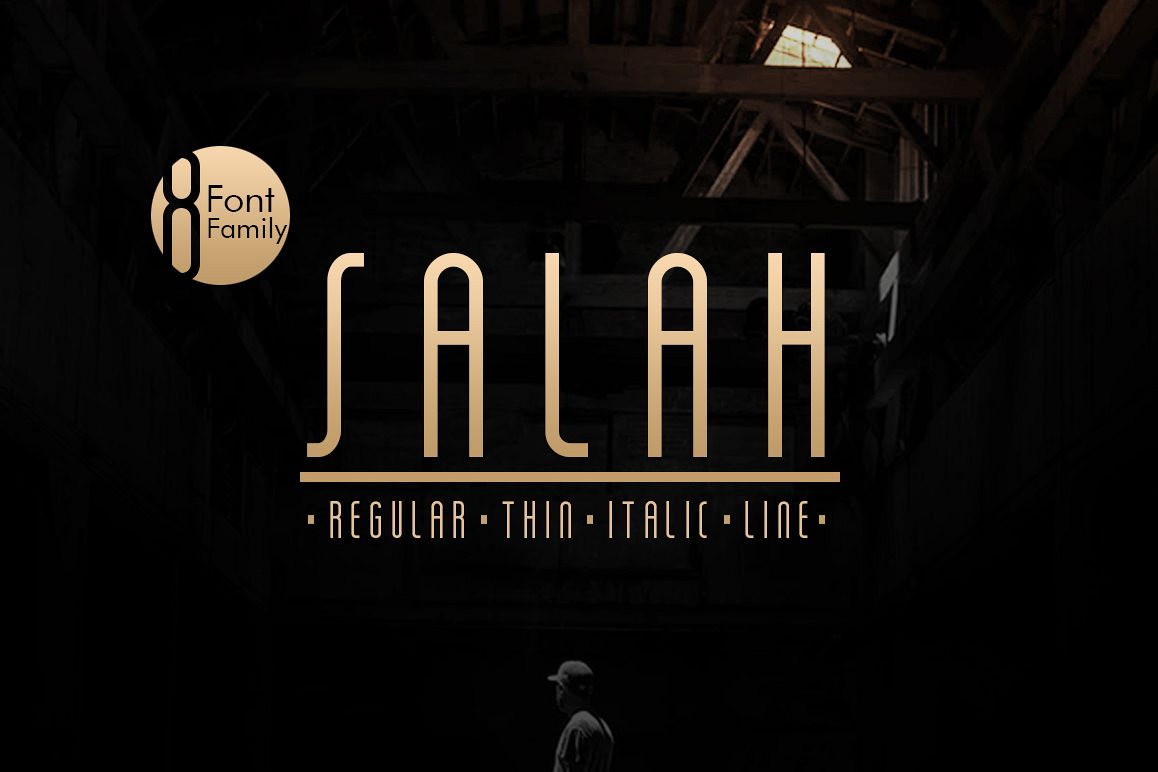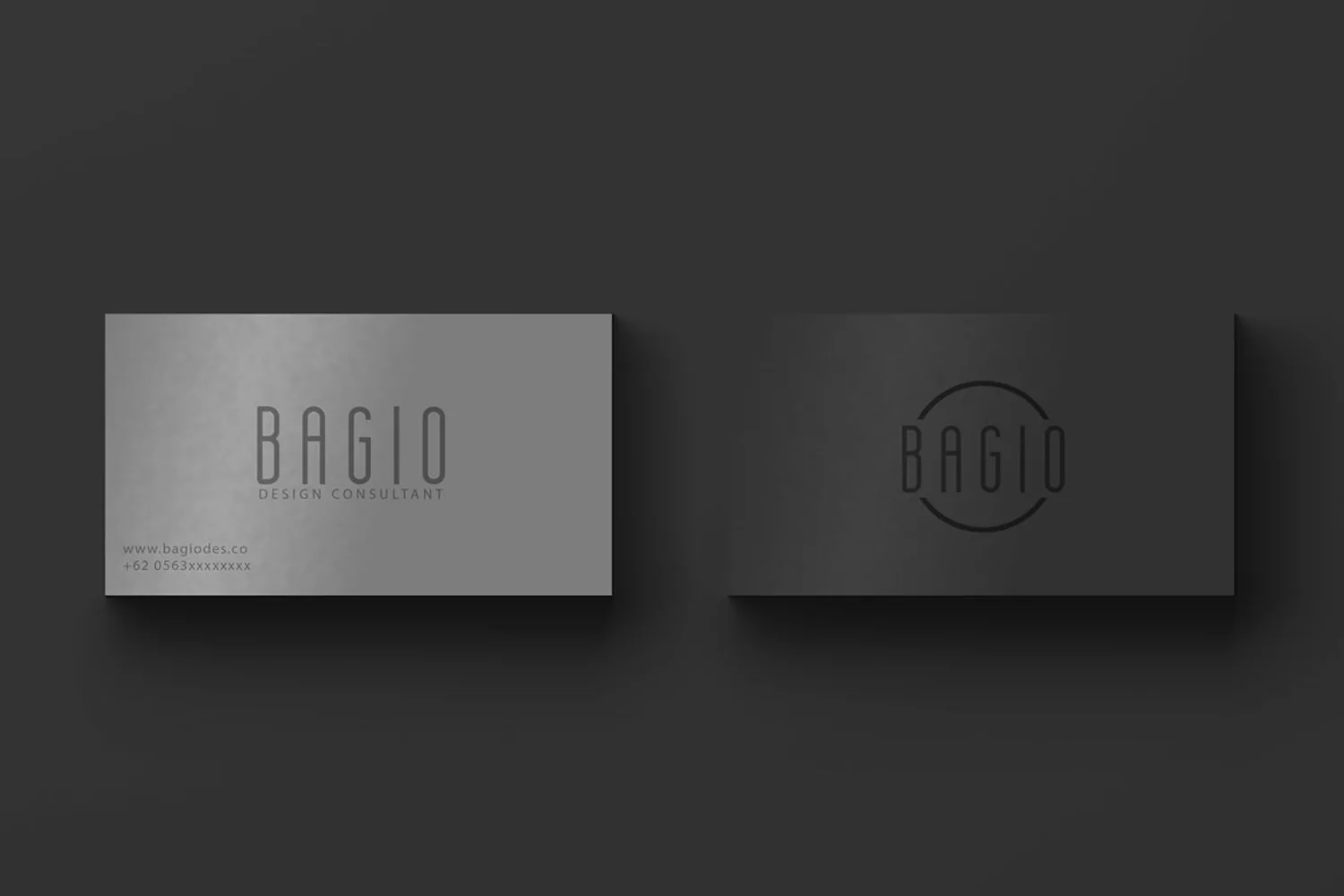
Salah Sans Serif 8 Font Family
Salah font is elegant and charming sans-serif typeface both modern and gorgeous. Felix has 8 different styles. Salah font it’s perfect for , poster, logo, magazine, cover, banner, tshirt and headers, or even large-scale artwork.